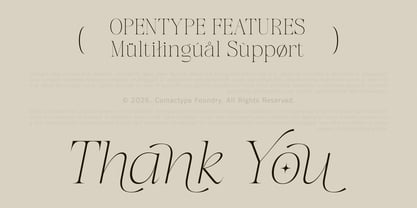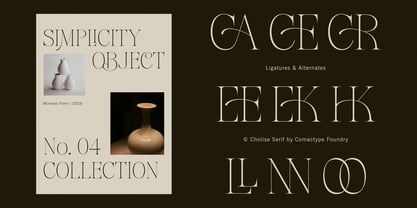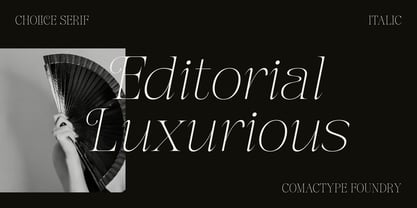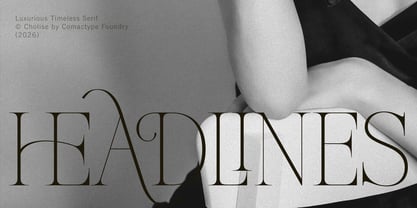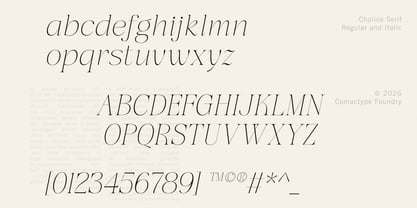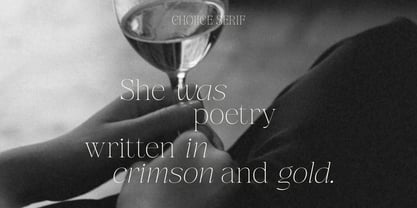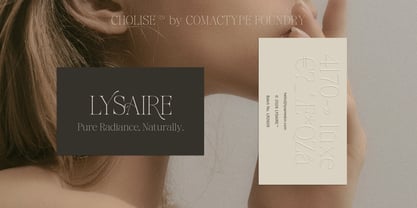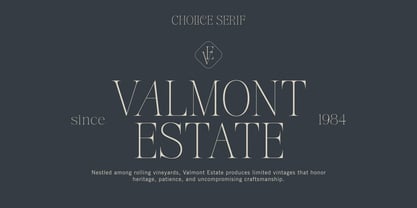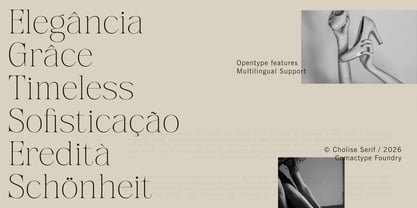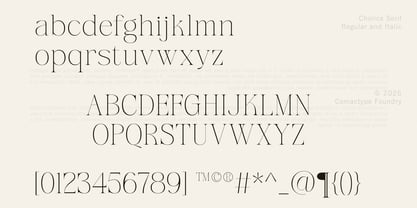
Cholice
by Comactype Foundry
The Cholice Font Family was designed by Hasnul Bolkiah and published by Comactype Foundry. Cholice contains 2 styles and family package options. More about this family
Cholice Serif is a luxurious and timeless serif typeface that blends classic elegance with a modern aesthetic. Designed with graceful proportions, high-contrast strokes, and beautifully crafted decorative alternates, it delivers a refined and sophisticated look for premium design projects.
Available in both Regular and Italic styles, Cholice Serif brings an editorial charm with a delicate yet striking personality. Its slender letterforms and artistic details create a distinctive visual presence, making it an excellent choice for designers seeking to express elegance, exclusivity, and style.
Perfect for a wide range of creative projects, Cholice Serif is ideal for luxury branding, logo design, fashion editorials, magazine layouts, premium packaging, wedding invitations, posters, headlines, social media content, luxury websites, book covers, catalogs, certificates, and elegant stationery. Its versatility allows every design to achieve a polished, sophisticated, and timeless appearance.
Features:
• Uppercase & Lowercase
• Numerals & Punctuation
• Ligatures
• Decorative Alternates
• Regular & Italic Styles
• Multilingual Support
Cholice Serif offers the perfect balance of classic beauty and contemporary refinement, making it an ideal choice for designers who want to create elegant, luxurious, and timeless typography.
Designers: Hasnul Bolkiah
Foundry: Comactype Foundry